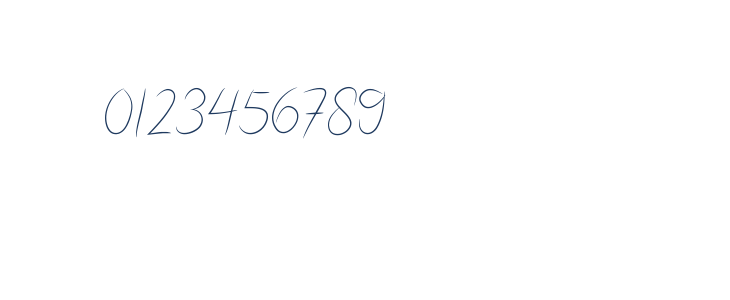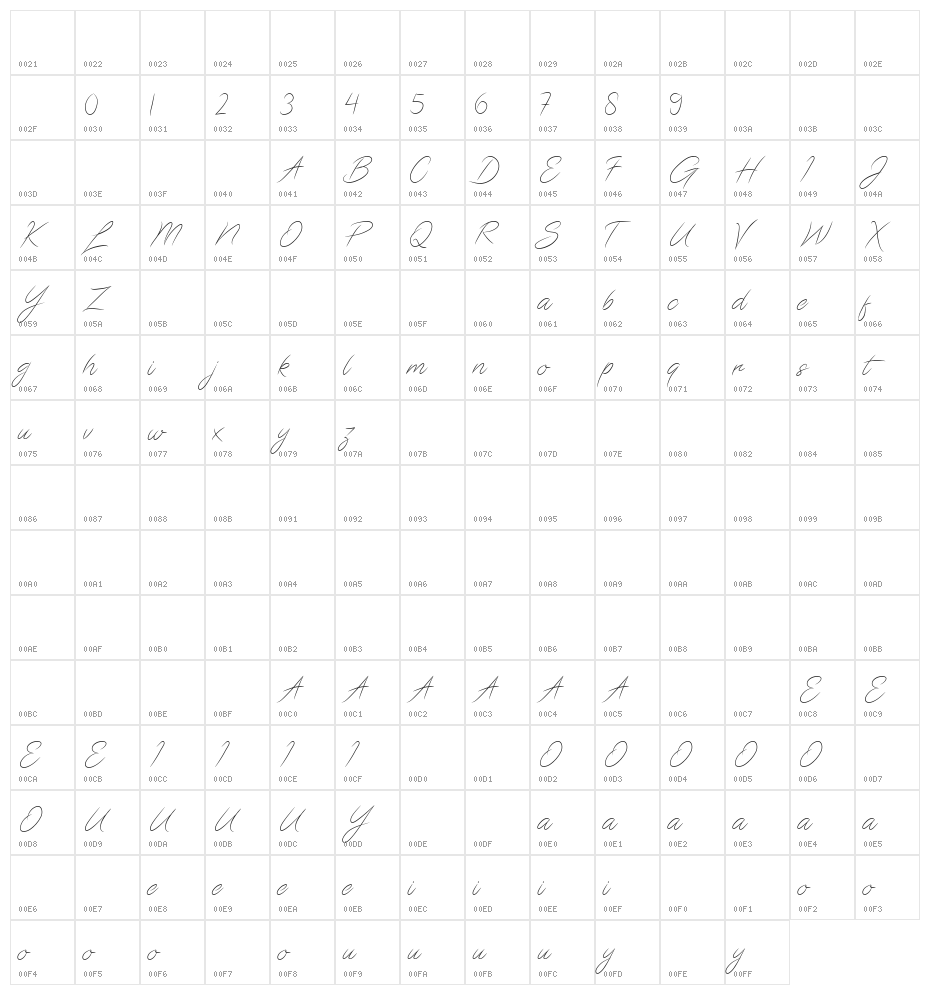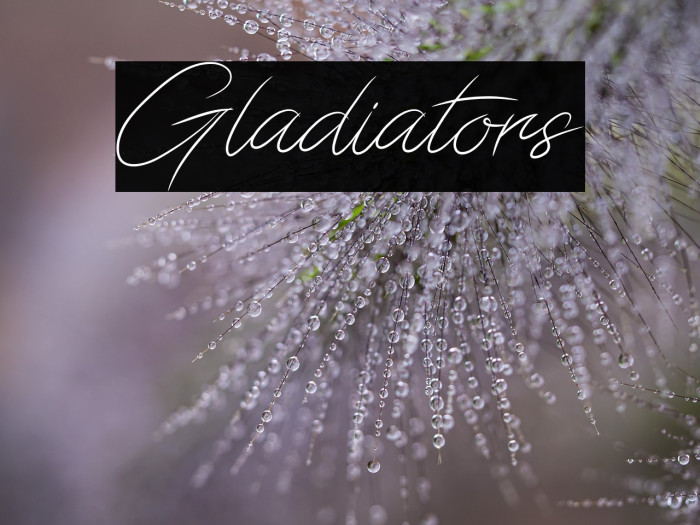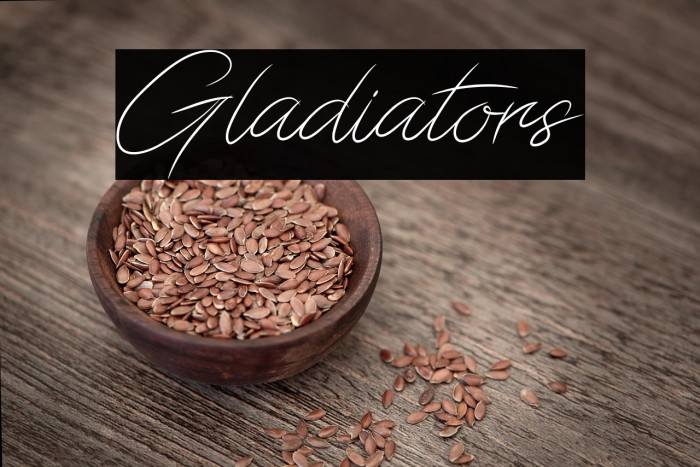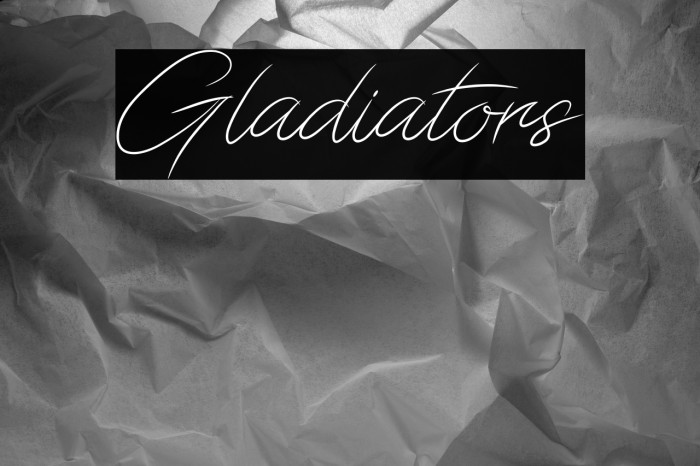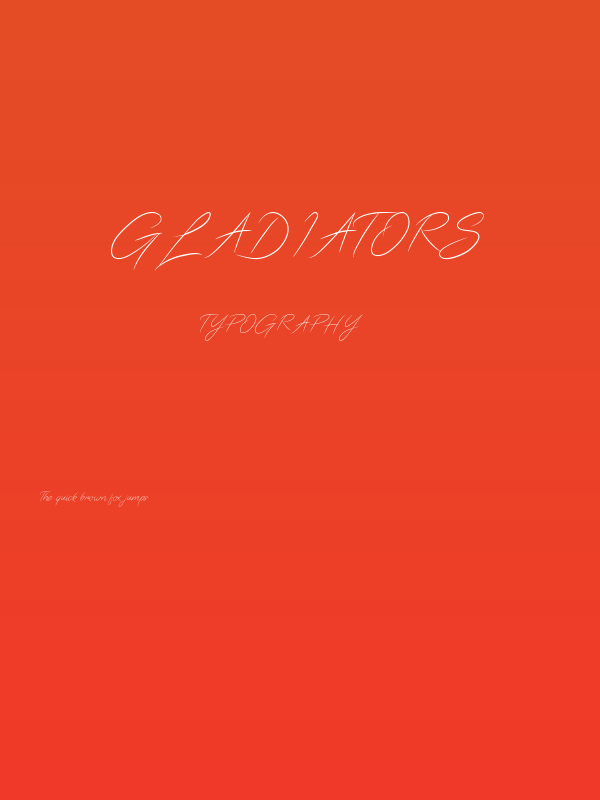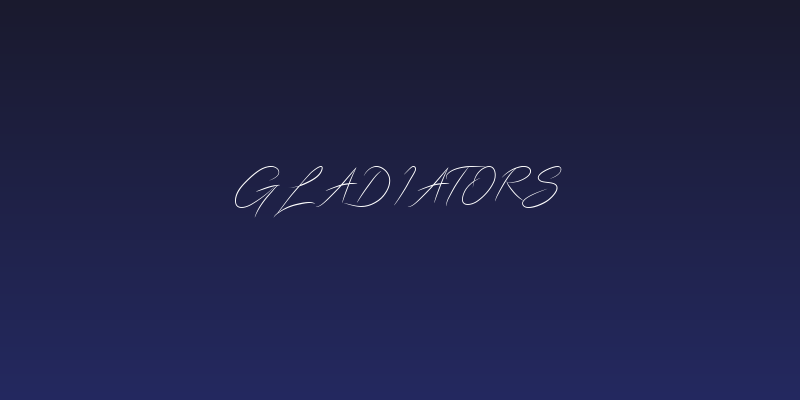
Gladiators Font
Gladiators Description
This font features a delicate and elegant script style, characterized by its flowing, cursive letters that mimic the fluidity of handwriting. The uppercase letters are tall and slender, with graceful curves and subtle flourishes that add a touch of sophistication. The lowercase letters maintain a consistent slant, enhancing the handwritten aesthetic. The numerals are designed to complement the letters, with a similar slant and smooth curves. This font's overall appearance is refined and stylish, making it suitable for projects that require a personal or artistic touch.